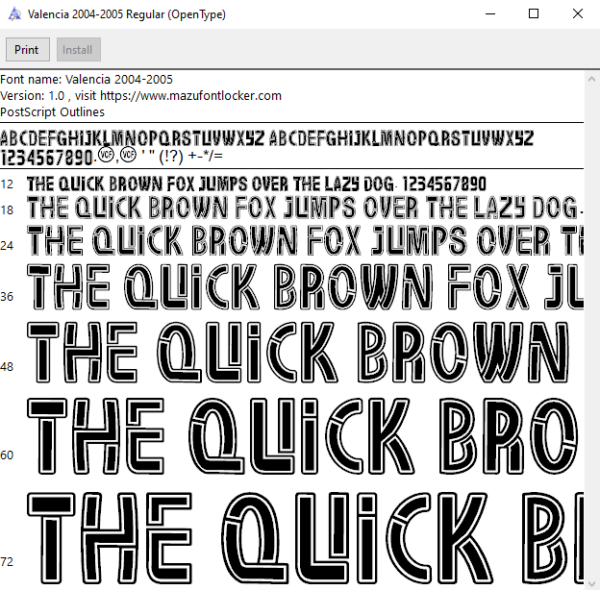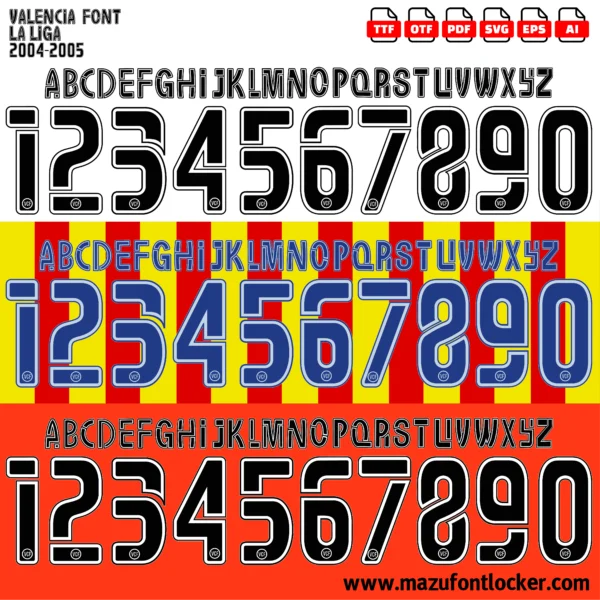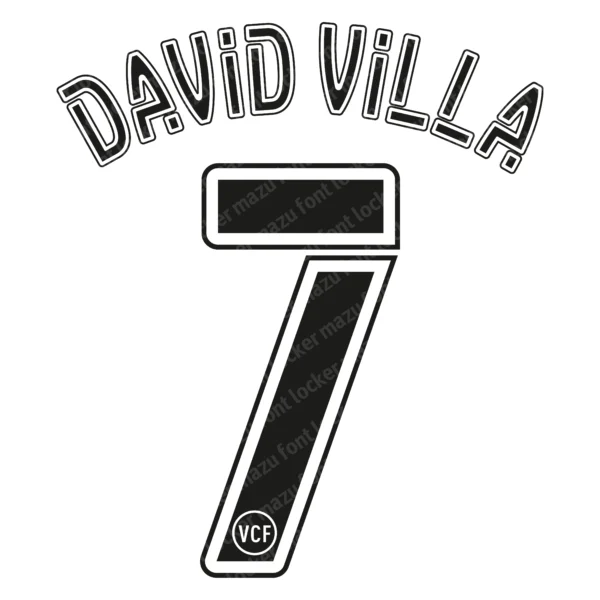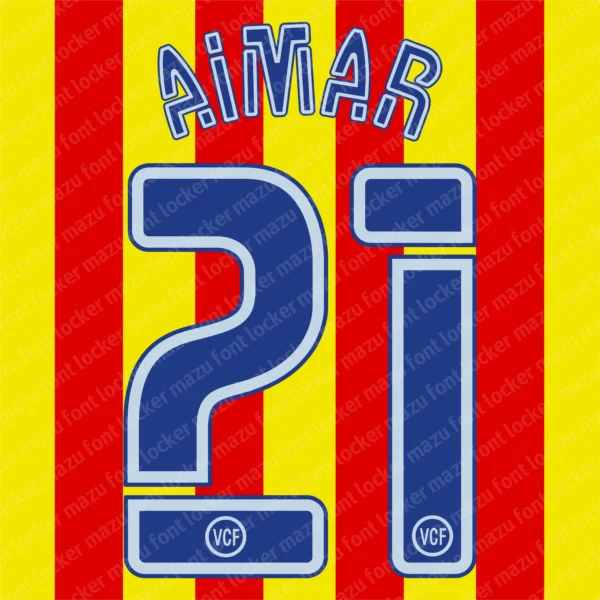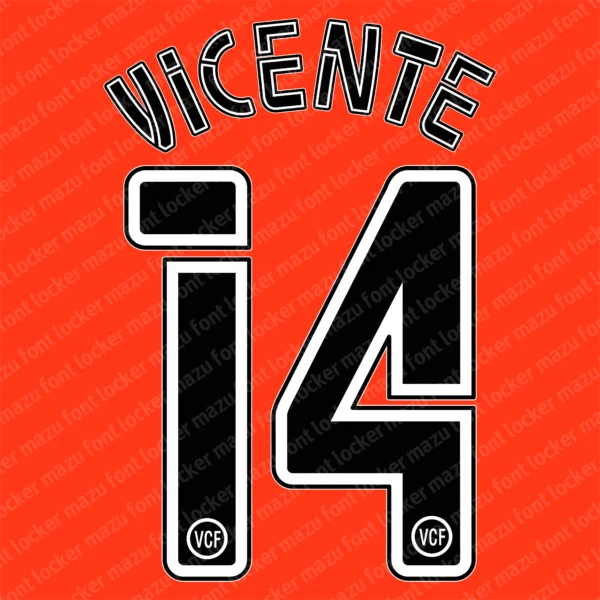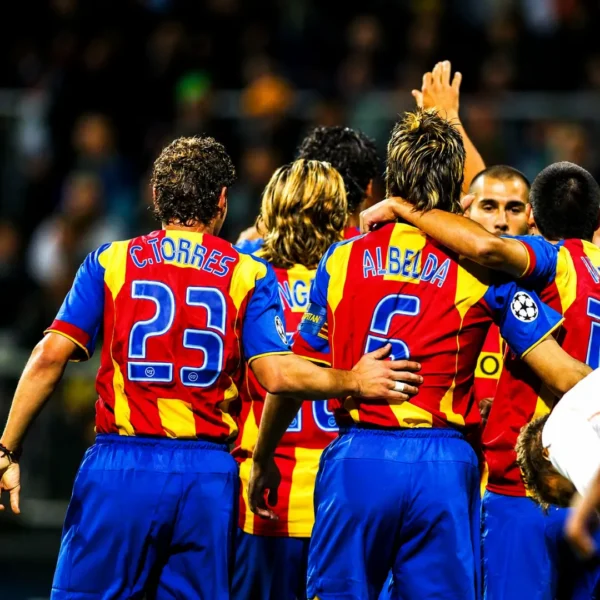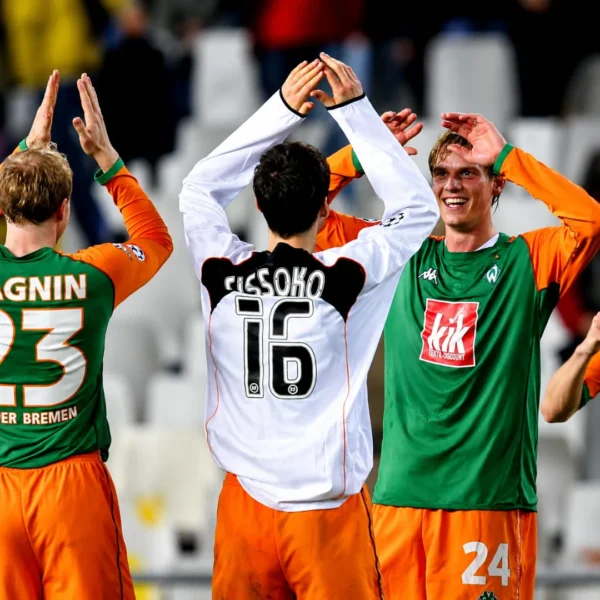
Valencia 2004-2005 Font Vector – Epic Los Che Masterpiece
This font captures the bold, fearless, explosive, and ultra-premium lettering that perfectly embodies Valencia’s iconic Spanish passion fused with the ruthless, majestic, and unstoppable spirit of Los Che — delivering unmatched intensity, raw emotion, elite craftsmanship, and pure White-Orange fire for premium jersey mockups, epic football designs, spectacular sports visuals, standout fan creations, and professional branding projects.
Valencia 2004-2005 Font Vector – Authentic Los Che Typeface
The Valencia 2004-2005 Font Vector is a premium typeface that accurately recreates the official match lettering worn by Valencia CF during their iconic 2004-2005 season. This high-quality vector font kit captures the bold, elegant, and distinctive typography that reflects the pride, attacking flair, and rich football heritage of Los Che.
Designed for professional designers and passionate Valencia supporters, the Valencia 2004-2005 Font Vector delivers perfect authenticity for creating realistic jersey mockups, fan merchandise, matchday posters, social media graphics, and classic football content. It pairs beautifully with Valencia’s legendary orange and white kits featuring the iconic club crest.
Why Choose Valencia 2004-2005 Font Vector
This font stands out because of its sharp vector precision and strong club identity. Every letter and number is crafted to match the exact style used on the players’ shirts during the memorable 2004-2005 campaign. Whether you are creating professional kit templates or celebrating Valencia’s golden era, the Valencia 2004-2005 Font Vector delivers an authentic match-ready appearance.
The letterforms in the Valencia 2004-2005 Font Vector are bold, clean, and highly readable. The characters feature balanced proportions and sharp detailing that create a professional appearance on both home and away jerseys while maintaining the classic football aesthetic of the mid-2000s.
The numerals feature strong geometric construction with excellent visibility and balance. Every number is carefully vectorized to ensure flawless scaling across digital graphics, print projects, and jersey applications.
• Full uppercase A–Z and numbers 0–9 in authentic Valencia 2004-2005 style
• Includes authentic styling inspired by official 2004-2005 season match shirts
Valencia 2004-2005 Season
The 2004-2005 season remains one of the most memorable in Valencia CF history. Los Che delivered outstanding performances in La Liga and European competitions, showcasing brilliant attacking football, tactical discipline, and the competitive spirit that made them one of Spain’s top clubs.
A mix of world-class stars and dedicated players helped Valencia secure silverware and create lasting memories for fans across the globe. The campaign further strengthened the club’s reputation as a major force in Spanish and European football.
The Valencia 2004-2005 Font Vector is an independently designed typeface package. It is carefully crafted to replicate the official shirt lettering style used during the 2004-2005 season. This font kit is ideal for football-themed creative projects, fan artwork, jersey concepts, and professional sports graphics.